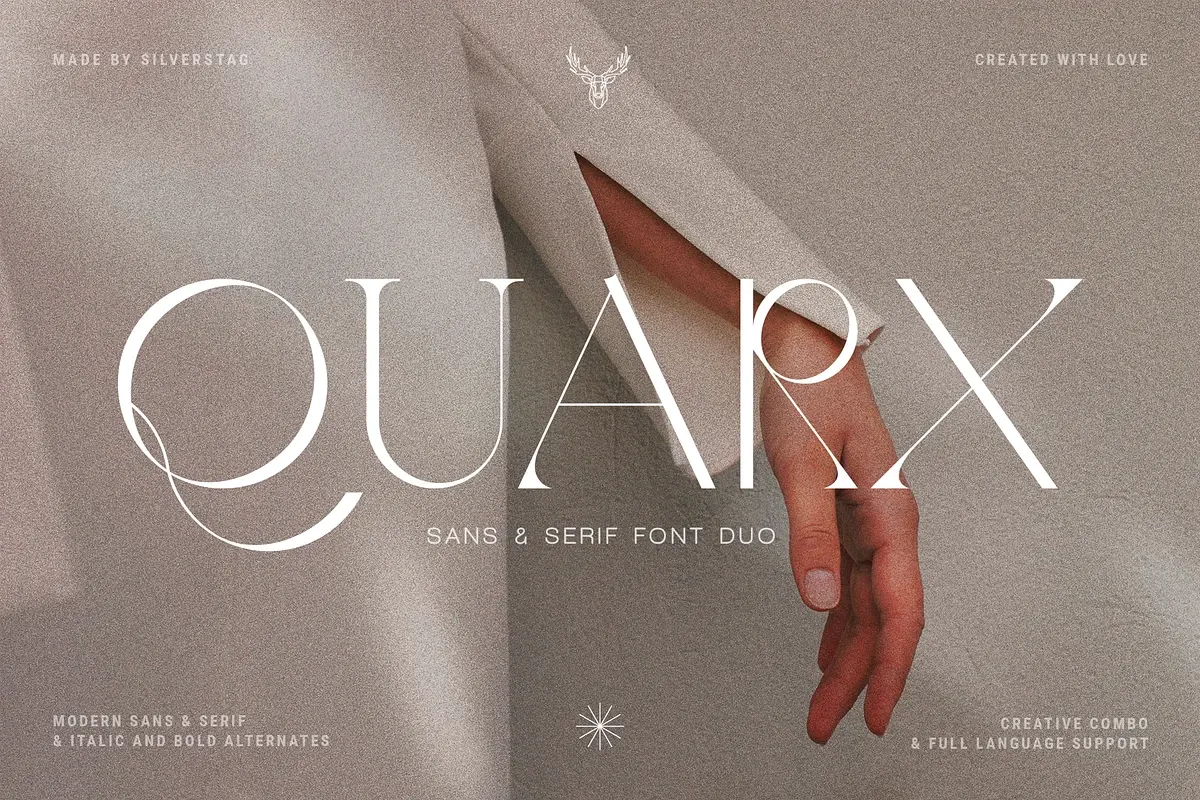
Quarx - Sans & Serif Modern Font Duo Free Download
Quarx - Sans & Serif Modern Font Duo Free Download is a dynamic and versatile font pairing that combines a sleek sans-serif with a classic serif typeface. Perfect for a variety of design projects, from branding and logos to websites and print materials, this duo provides a modern and professional look with the flexibility of two distinct styles.
The Quarx Sans font is minimalistic and clean, ideal for headlines, digital content, and modern branding. The Quarx Serif font complements it with a more traditional, elegant feel, adding balance and refinement to your designs. Whether you need something bold and modern or elegant and classic, Quarx gives you the best of both worlds.
Create contemporary, versatile typography with Quarx - Sans & Serif Modern Font Duo Free Download, and bring a balance of modern simplicity and classic sophistication to your designs. Perfect for designers seeking flexibility and style in one font duo.